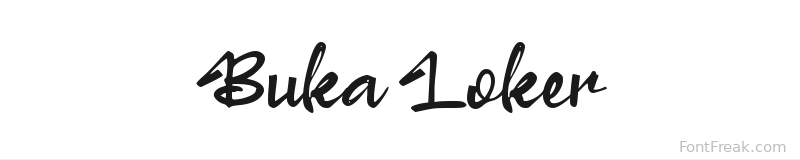
Buka Loker
Buka Loker, designed by Wahyu Eka Prasetya, is a striking display font that falls into the script category. This font boasts a unique cursive style, characterized by its fluid strokes and elegant curves, creating a sense of movement and personality. The stroke weight varies, offering an eye-catching contrast that enhances its visual appeal. The spacing is well-balanced, allowing for legibility while maintaining a decorative flair. The playful nature of Buka Loker is accentuated by its organic lines and whimsical flourishes, making it perfect for a variety of creative projects.
This font is ideally suited for wedding invitations, where its romantic style can beautifully convey heartfelt sentiments. It also excels in creating eye-catching movie posters, giving a dramatic touch that draws attention. Restaurant menus can benefit from Buka Loker's charm, adding a friendly and inviting feel that complements the dining experience. Additionally, it can be used effectively in social media graphics, helping content creators convey a personable and engaging brand identity. The target audience for this font includes graphic designers seeking to enhance their projects, small business owners looking for a distinctive logo or branding element, and content creators aiming to make their visuals stand out.
What sets the Buka Loker font apart is its harmonious blend of elegance and playfulness, allowing it to adapt to various contexts while maintaining a distinct personality. Its free availability as a freeware license makes it accessible for anyone looking to elevate their designs. Whether you're crafting an invitation, promotional material, or any other creative endeavor, the Buka Loker font free download offers a unique solution that stands out in a crowded market. With its artistic flair and versatility, this font is sure to leave a lasting impression.